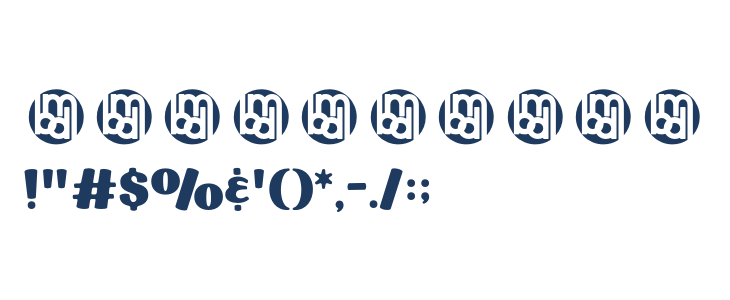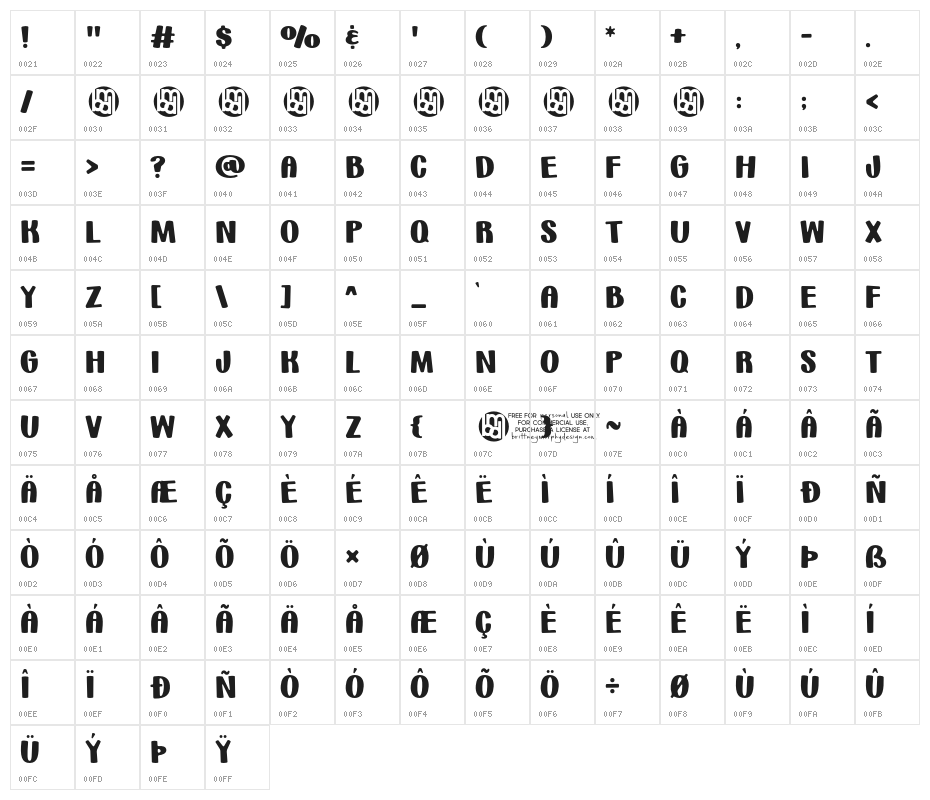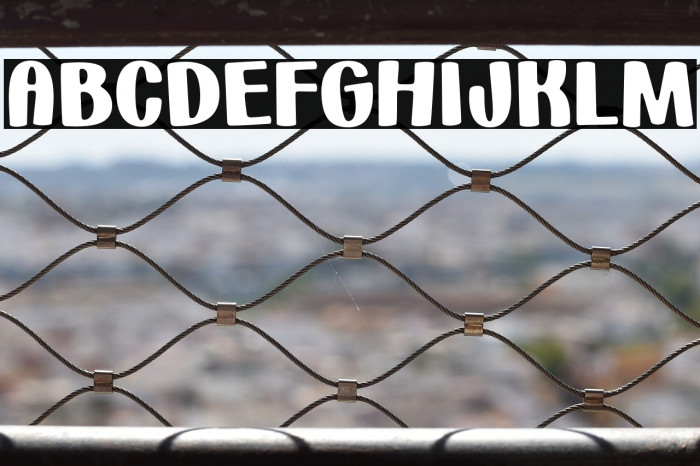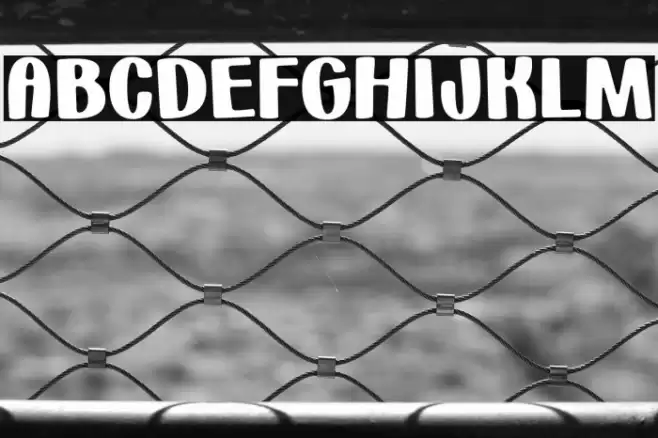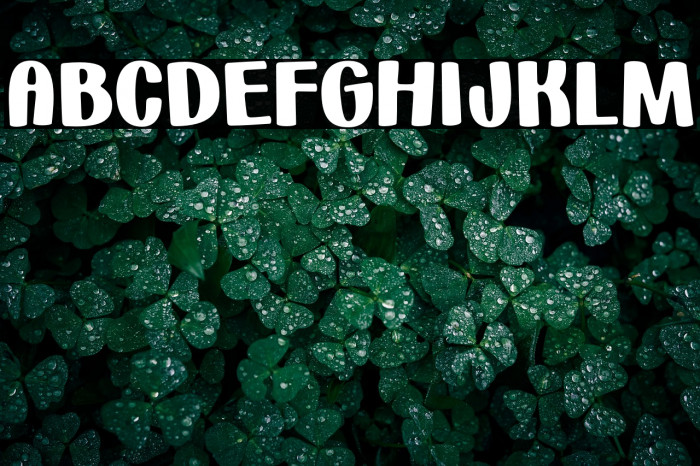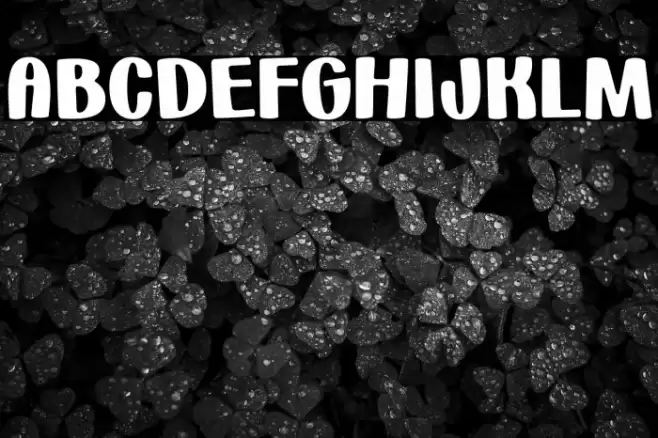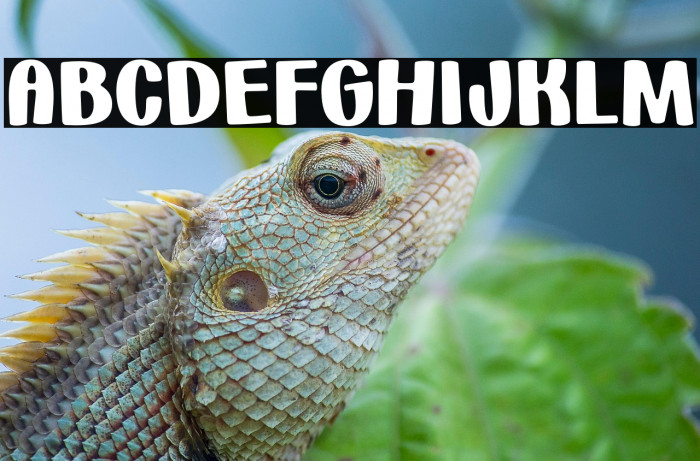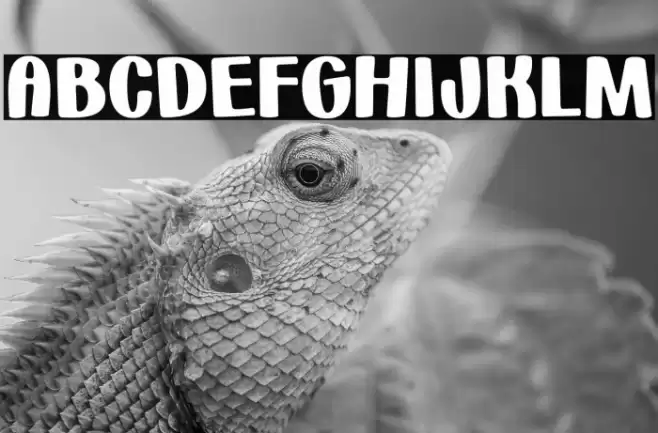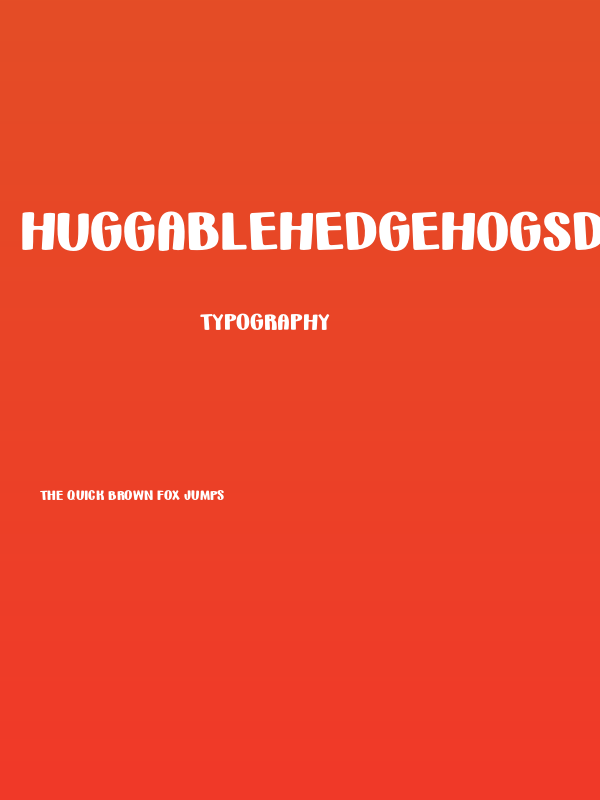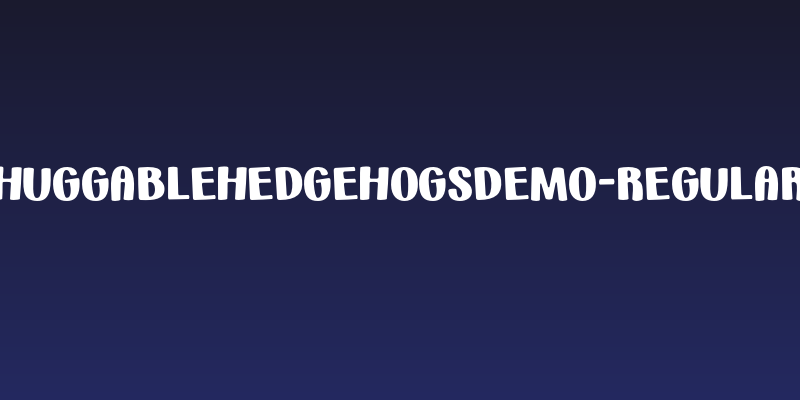
HuggableHedgehogsDemo-Regular Font
HuggableHedgehogsDemo-Regular Description
This playful and bold font features thick, rounded characters that exude a sense of fun and friendliness. The letters are uniformly wide with a slightly condensed appearance, giving them a compact and cohesive look. The font's unique style is characterized by its smooth curves and consistent stroke width, making it highly legible while maintaining a whimsical charm. The special characters, including punctuation and symbols, are designed with the same playful aesthetic, ensuring a harmonious appearance across all text elements. This font is ideal for projects that require a touch of creativity and lightheartedness.